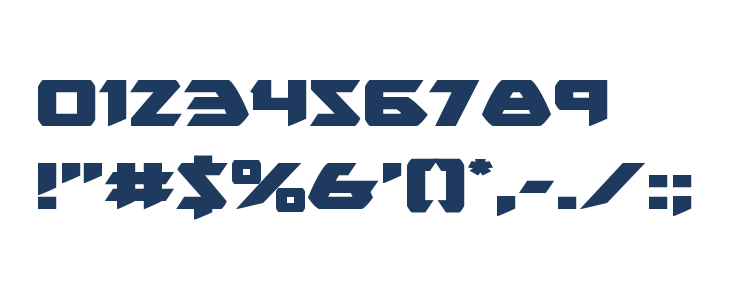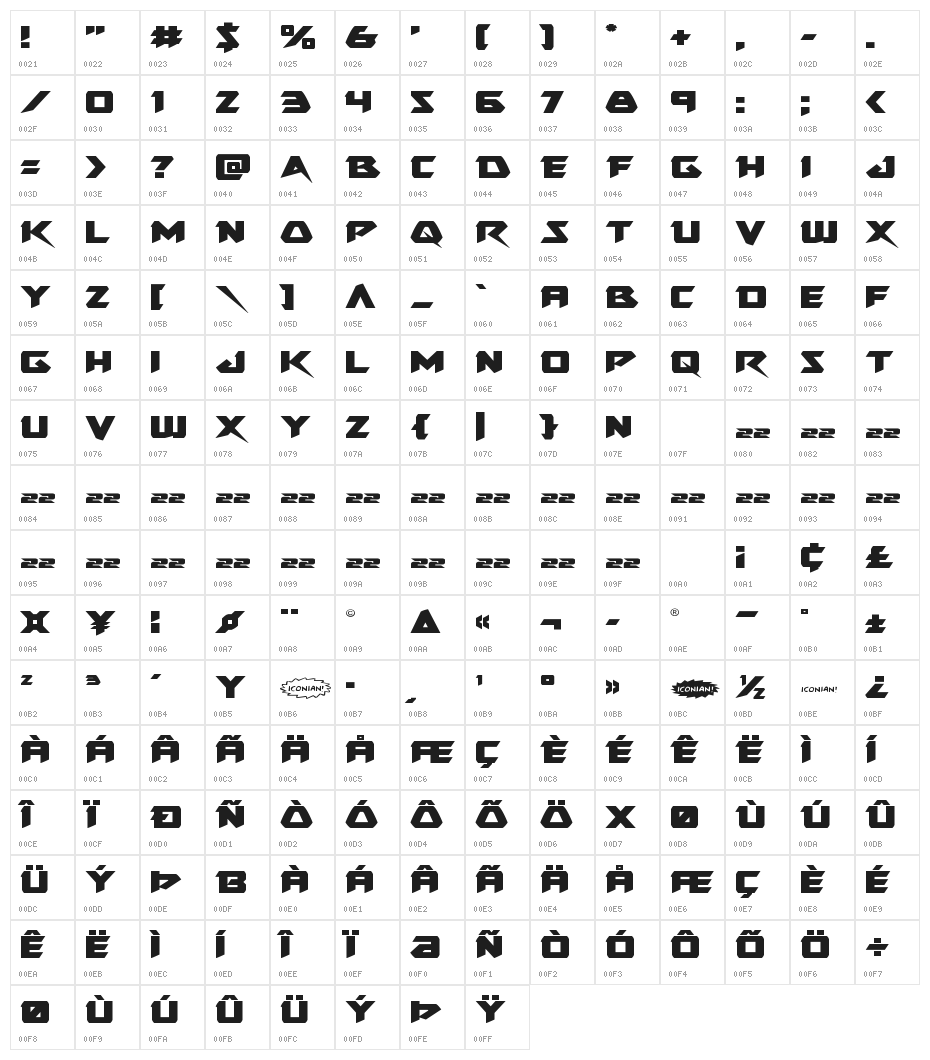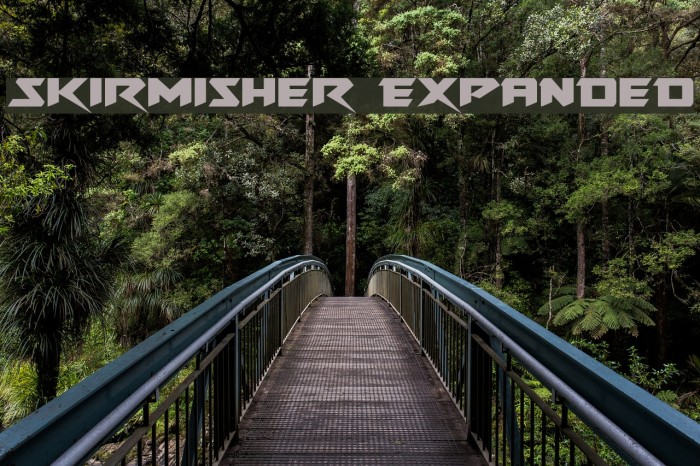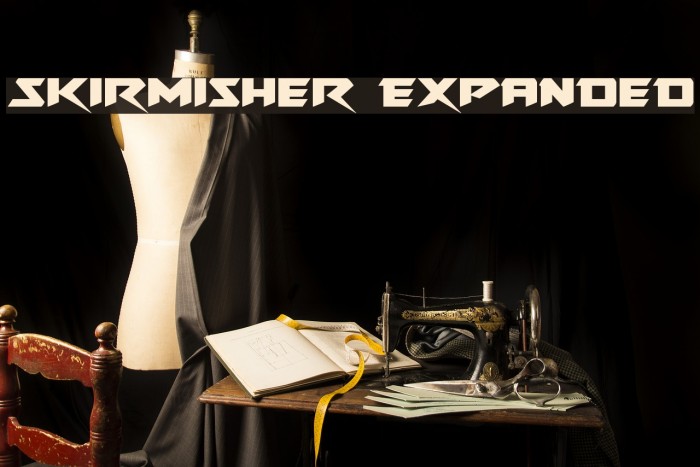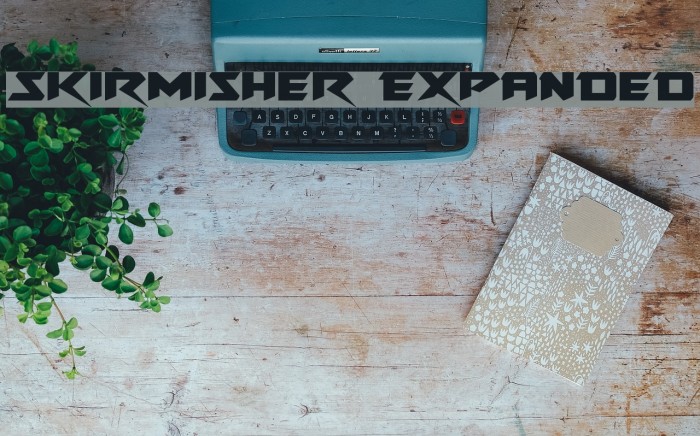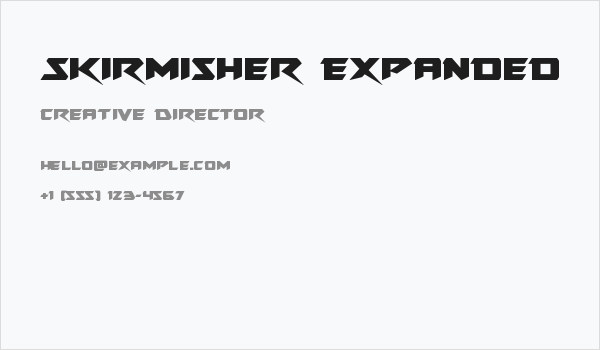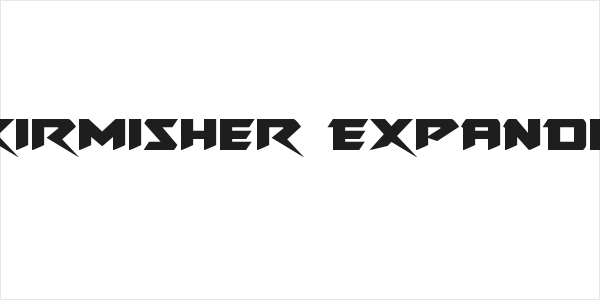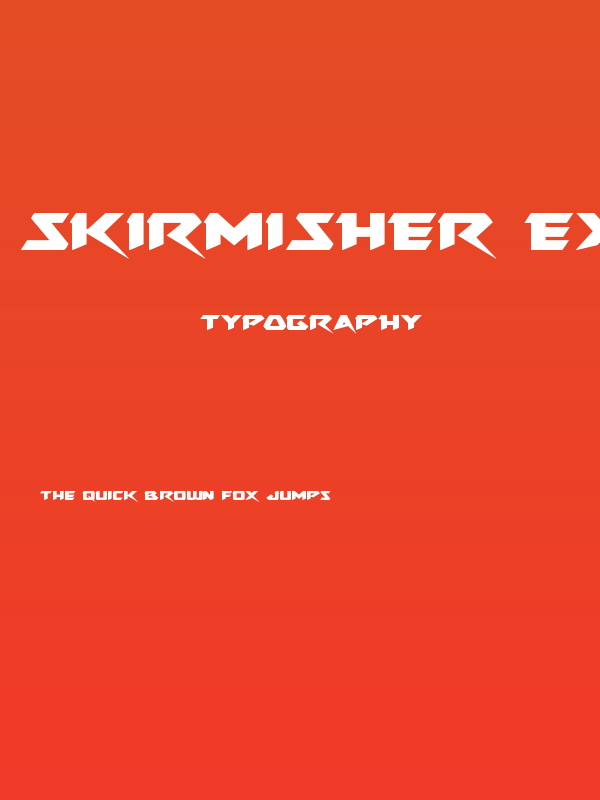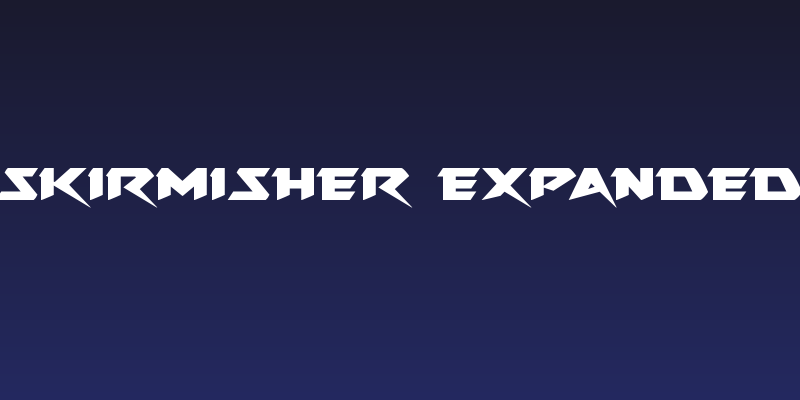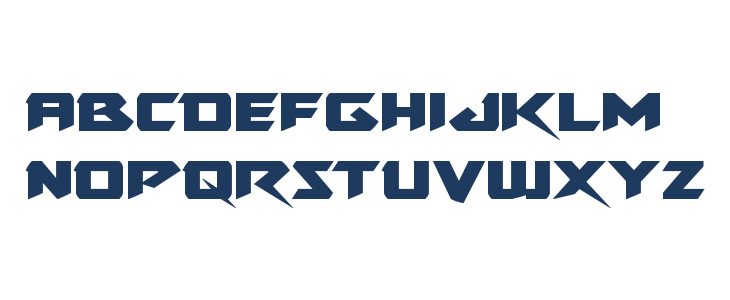
Skirmisher Expanded Font
Skirmisher Expanded Description
This font features a bold and angular design, characterized by sharp edges and a futuristic aesthetic. The letters are constructed with a geometric precision, giving them a dynamic and aggressive look. The uppercase and lowercase letters maintain a consistent style, with the uppercase being particularly striking due to its pronounced angles. Numbers and special characters follow the same design principles, ensuring uniformity across all glyphs. The font's expanded width enhances its presence, making it ideal for impactful displays.
| Proposed Projects | Ideal for projects requiring a strong visual impact, such as video game titles, movie posters, or branding for tech companies. |